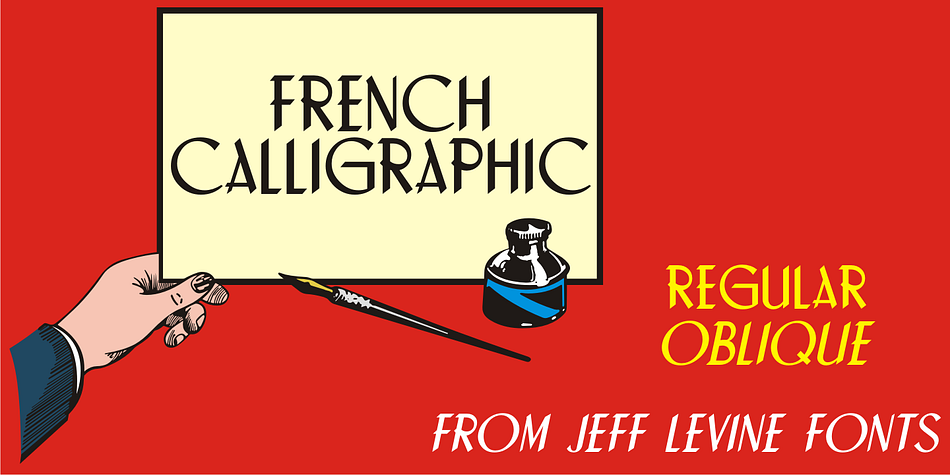
Designed by Jeff Levine, French Calligraphic JNL is a display sans and script font family. This typeface has two styles and was published by Jeff Levine Fonts.
French Calligraphic JNL is actually more semi-calligraphic in nature. Its name takes a descriptive liberty because of the sharp, angled pen strokes of the original hand lettered example found in the 1930s publication “100 Alphabets Publicitaires” by M. Moullet.
The design is available in both regular and oblique versions.